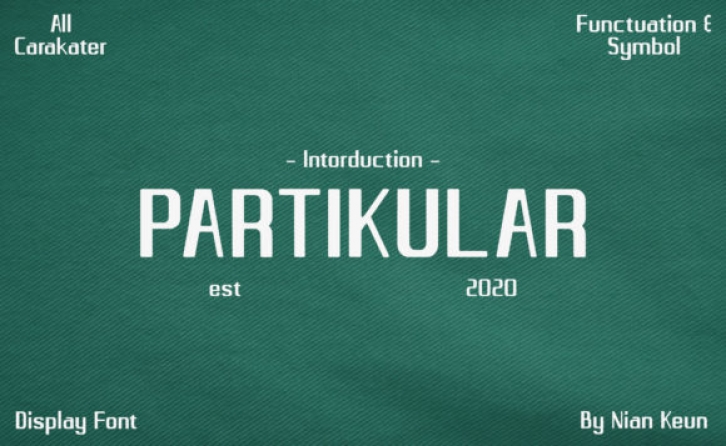
Partikular is a cool, minimal and versatile display font. This font would be ideal for writing web designs, business cards, or pretty much anything else that requires a unique touch.